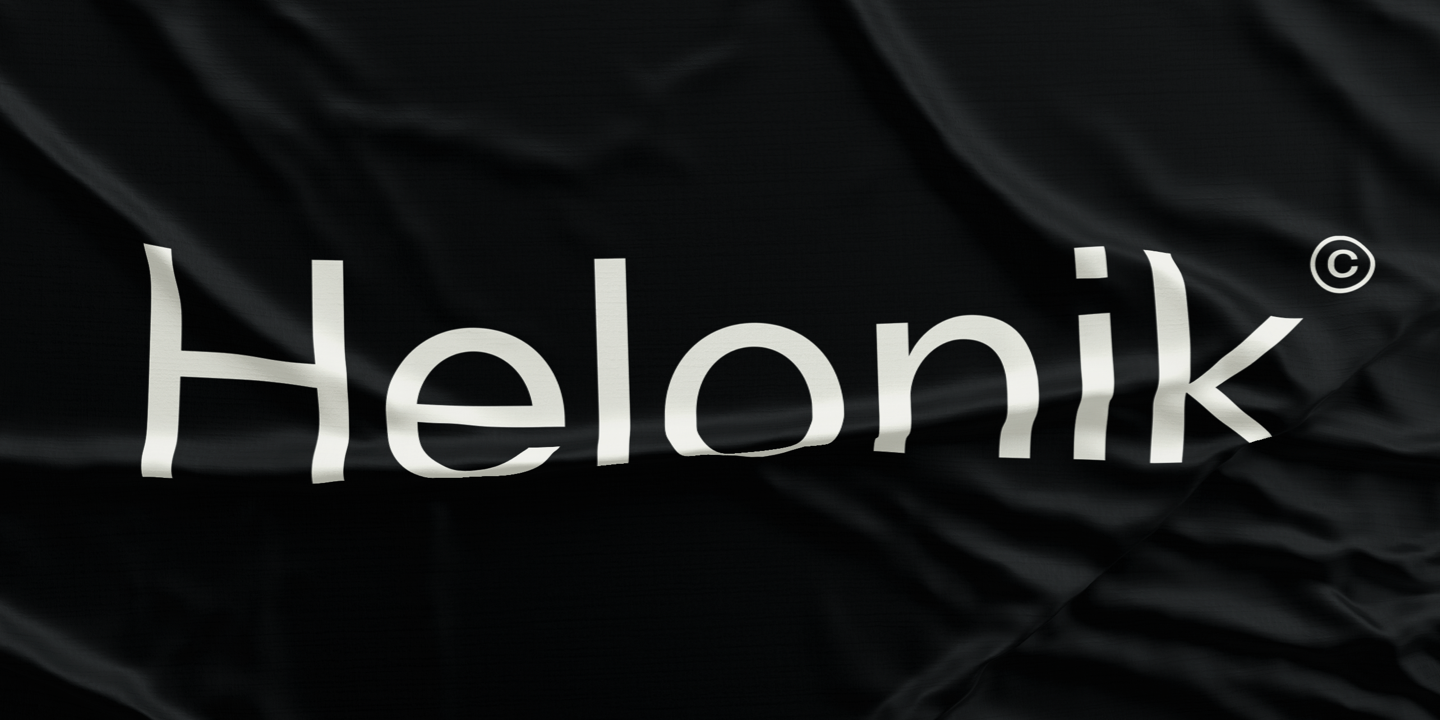
Helonik Font Free Download is a bold and distinctive sans-serif typeface that brings a contemporary edge to your design projects. With its clean lines and strong presence, it is perfect for headlines, branding, posters, and digital interfaces that demand attention.
The geometric shapes and balanced proportions of Helonik Font Free Download ensure excellent readability while conveying confidence and modernity. Whether you are working on a corporate identity or creative campaign, this font stands out with its sleek style.
Give your projects a powerful and modern look with Helonik Font Free Download. If you want a font that combines strength and style effortlessly, Helonik is the perfect choice.